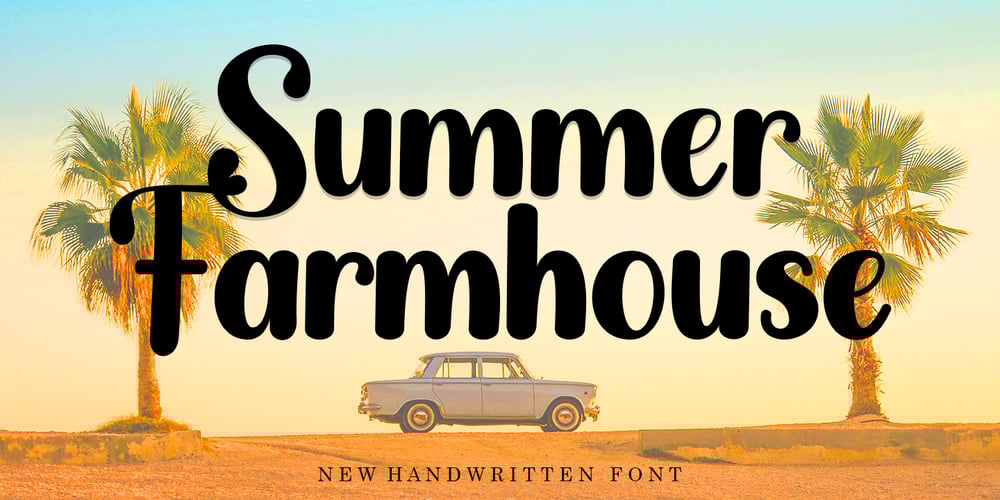
Summer Farmhouse Font Family was designed by Romi Rahmadi and published by Romie Creative. Summer Farmhouse contains 1 styles and family package options. Summer Farmhouse is an warm and cozy handwritten font, carefully handcrafted to become a true favorite. It can be used for various purposes such as logos, invitations, headings, t-shirts, letterhead, signage, labels, news, posters, badges and so much more.